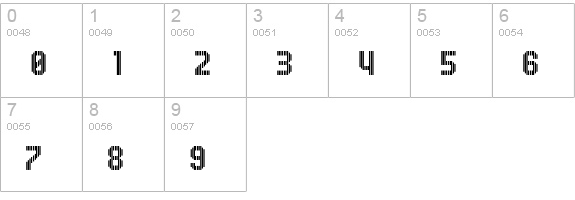
Introducing UNDA-Vertical, a unique and captivating font that will take your designs to new heights. This font exudes a sense of elegance and modernity, making it perfect for a wide range of projects. UNDA-Vertical is a versatile typeface that can be used for both display purposes and body text, allowing you to create stunning headlines or enhance the readability of your content. One of the standout features of UNDA-Vertical is its vertical design, which adds a touch of sophistication and visual interest to any project. The tall and slender letterforms are meticulously crafted, ensuring that each character is balanced and harmonious. This font's vertical orientation gives it a distinctive look that sets it apart from other typefaces, making it a great choice for branding, logos, and editorial designs. But what truly sets UNDA-Vertical apart is that it is available for free. Yes, you read that right – this exceptional font can be downloaded without any cost at FontsMarket.com. This means that you can enjoy all the benefits of this stunning typeface without breaking the bank. Whether you're a professional designer or a hobbyist, UNDA-Vertical provides you with a high-quality font that will elevate your designs without draining your resources. With its wide range of characters, UNDA-Vertical supports multiple languages, making it accessible to a global audience. This font is thoughtfully designed to ensure legibility in both print and digital mediums, giving you the freedom to use it across various platforms. UNDA-Vertical is a font that embodies creativity, style, and accessibility. It is a testament to the power of innovative design and the possibilities it holds. So why wait? Download UNDA-Vertical for free at FontsMarket.com and unlock the potential to create visually stunning and impactful designs that will leave a lasting impression.